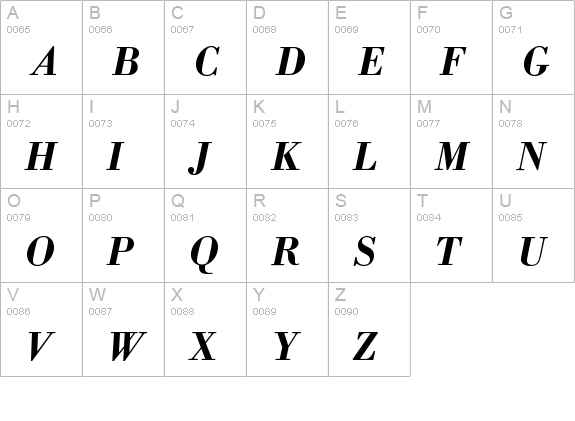
Bodoni Berthold BQ Medium Italic Font Details
Bodoni Berthold BQ Medium Italic is a balanced, medium-weight, italic variant in the Bodoni typeface family \xE2\x80\x94 well suited to sub-headlines, navigation, and balanced editorial work.
Introducing Bodoni Berthold BQ Medium Italic font, a timeless and elegant typeface that exudes sophistication and style. With its sleek and refined design, this font is perfect for adding a touch of class to any project. The italicized version of Bodoni Berthold BQ Medium adds a dynamic flair to your text, making it ideal for titles, headings, and emphasis. What sets Bodoni Berthold BQ Medium Italic font apart is not only its classic beauty but also its versatility. Whether you're designing a magazine layout, creating a logo, or crafting a wedding invitation, this font will elevate your work to the next level. And the best part? Bodoni Berthold BQ Medium Italic font is freely available to download at FontsMarket.com. Now you can enhance your designs with this exquisite typeface without breaking the bank. Don't miss out on the opportunity to add Bodoni Berthold BQ Medium Italic font to your font collection today!